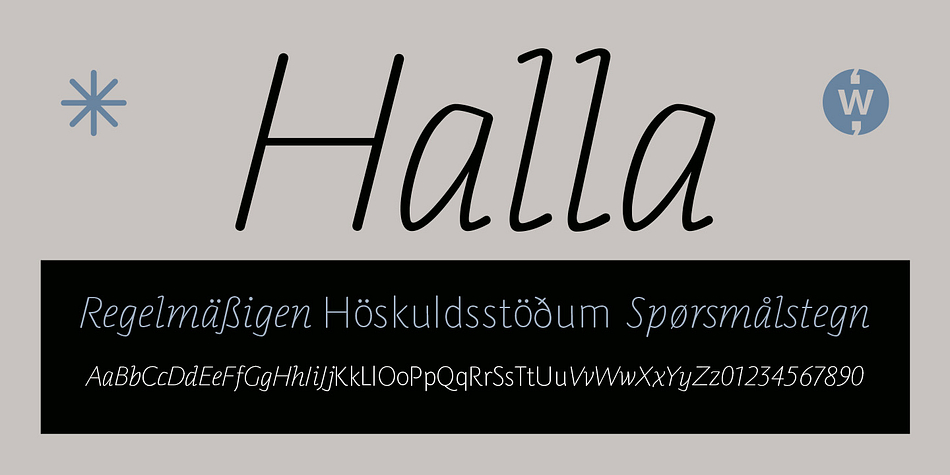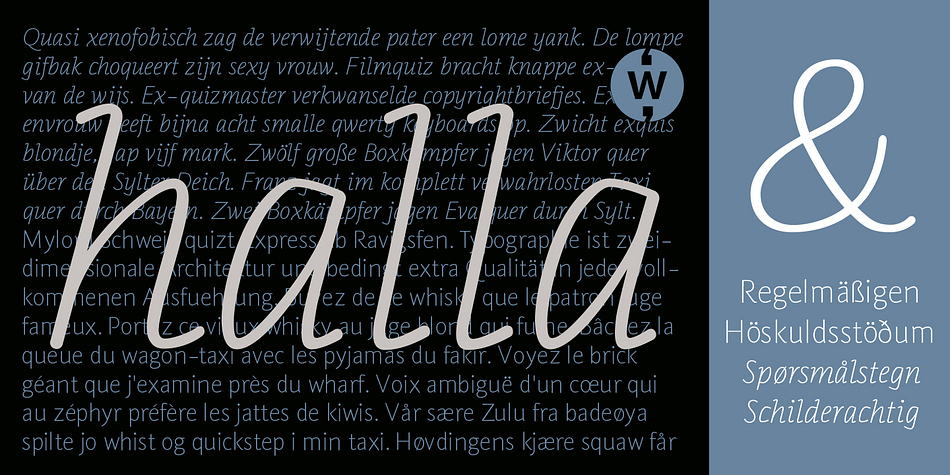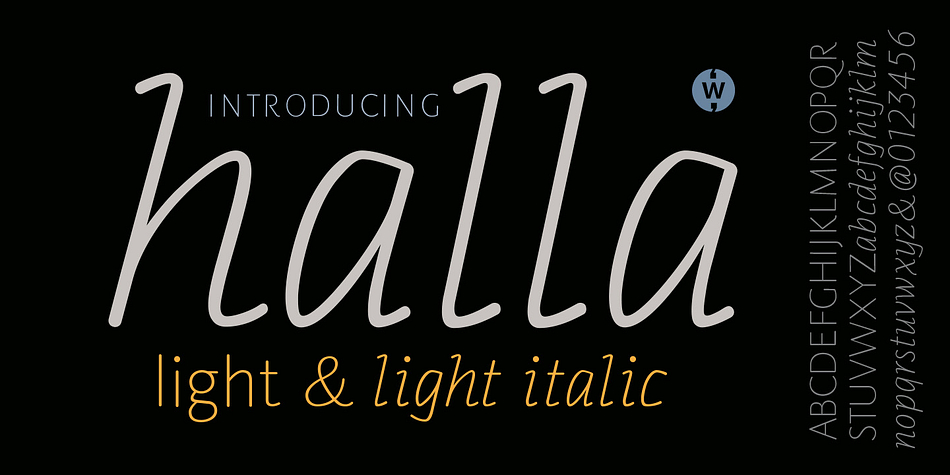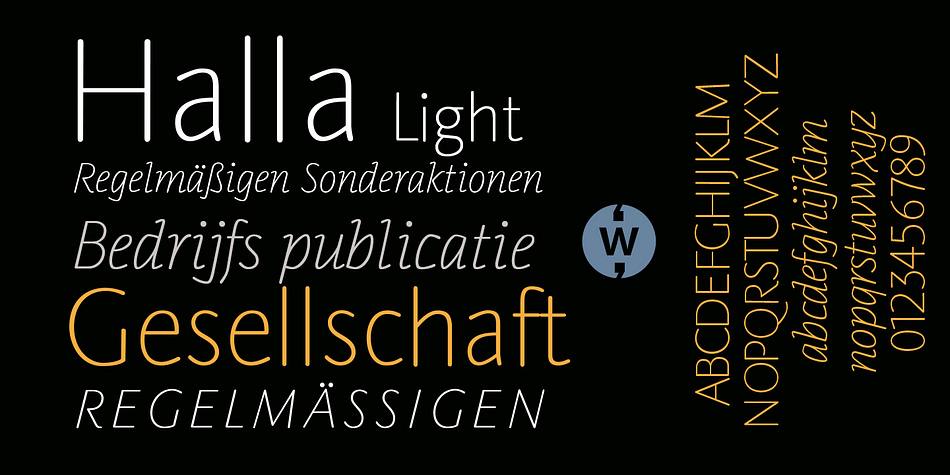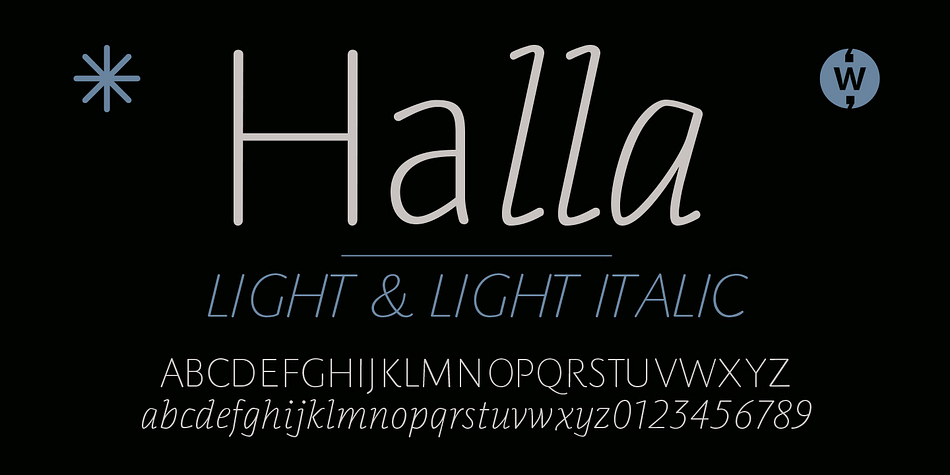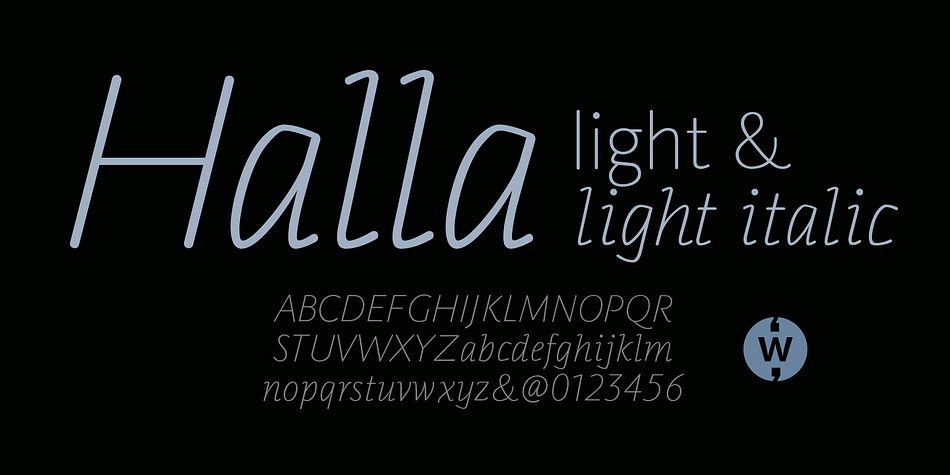
Designed by Robbie de Villiers, Halla is a sans serif font family. This typeface has two styles and was published by Wilton Foundry.
Creating Halla was a bit unusual for me since I started out creating the italic version first and that inspired the name Halla, meaning to tilt in Icelandic. It is also a fairly common female name in Iceland. “Halla” is derived from old Norse word “hallr” = ‘flat stone, rock’ or ‘sloping, leaning to one side.’
Halla is a true italic inspired by handwriting and mechanical type.
The combination of Light and Italic makes Halla ideal for advertising, branding, signage, packaging and editorial design.